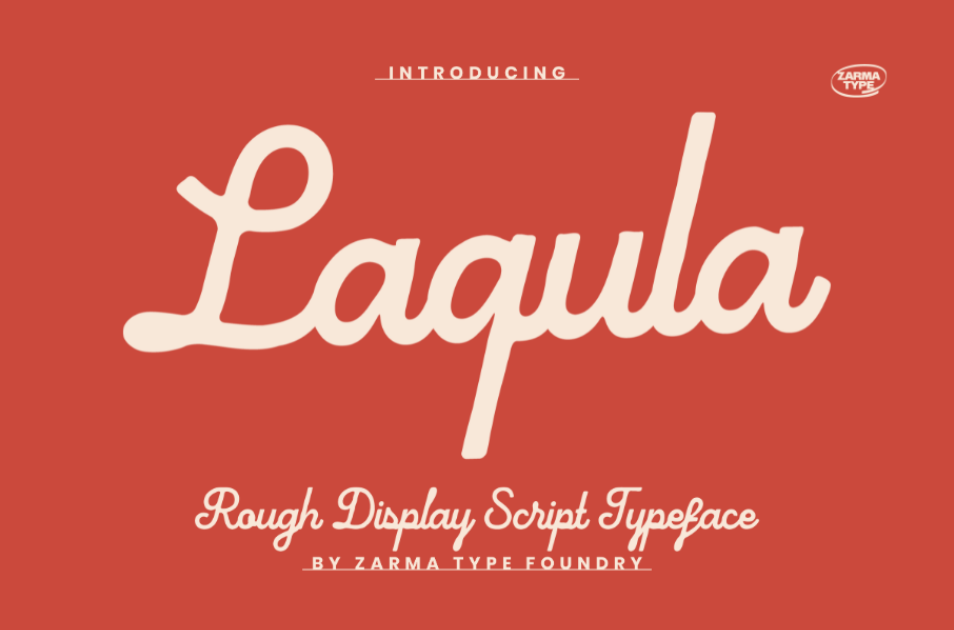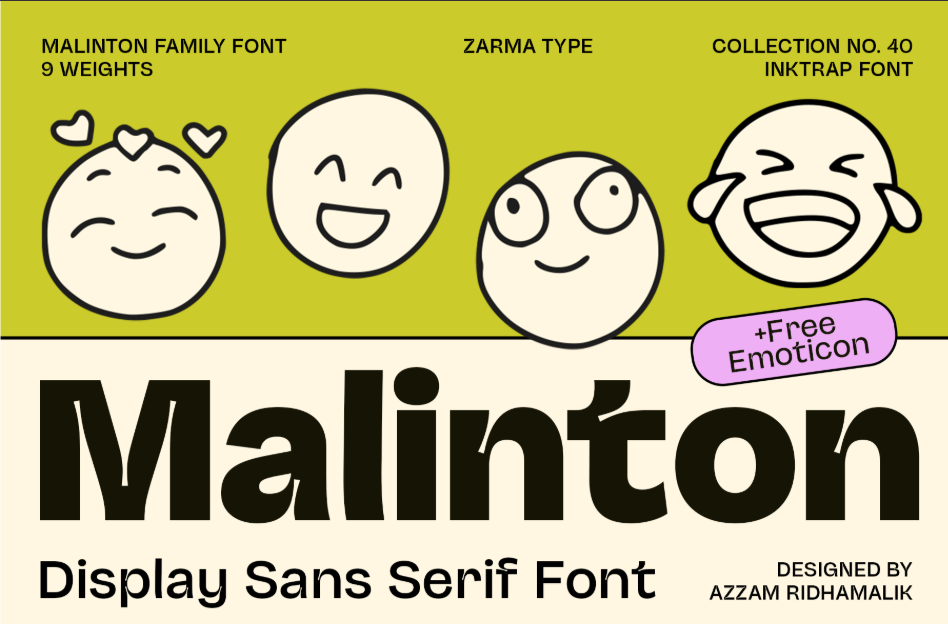
Poster fonts strengthen your designs’ influence on your audience through their aesthetic minimalism and agreeable kerning. They also often possess decent boldness to maintain readability. Our fonts can enhance the effectiveness and visual appeal of your designs with those qualities and originality, as well.
Key takeaways:
There are several key aspects to consider when creating effective posters. Firstly, you need to pay attention to the poster font sizes. Nanyang Technological University states the minimum size is 30pt. However, the size still depends on the themes of your posters and the crucial points you wish the audience to notice.
Additionally, Canva also highlights the importance of choosing fonts with few festive decorations and prioritizing more minimalistic, geometric letter shapes. Below is the list of our fonts that we have selected carefully to support you in creating the best influential posters ever.
The miniature counters and broad designs of Bilgres underline the font’s whimsical presence. Stamp the round edges and interesting ligatures to create original looks.
Benitter embellishes your posters with vintage auras with the font’s organic and clean strokes. Let the no-counter alternates get involved in making your captivating designs.
The condensed kerning emphasizes important messages in the headlines of your scientific posters. Ensures the flawless visual of them with the refreshing ligatures, too.
Psygen proposes a mutual relationship to raise the reputation of your tech-themed posters with the font’s pixelated capitals and advanced alternates.
The dense kerning and even boldness only maximize Moldin’s powerful impact on titles. Excel your business-related posters by combining the six versions of font weight.
Morning Grown’s consistent thickness and sprodiadic letter shapes place the font as one of the best festive-like poster fonts. Include the discretionary ligatures for a unique look.
The appropriate boldness and elegant contrast establish confidence in your posters. Add a customized appearance by incorporating the font’s contemporary ligatures..
The dynamic between Ayuga’s exaggerated boldness and slender connecting strokes can emphasize the thematic visual of your hipster-inspired posters.
The matchless steadiness of Laquala’s mediumweight compromises gorgeously with the precision of the font’s strokes. Use the handwritten strokes on your movie posters to catch more attention.
The minimalism of Malinton’s decorative detail does not detract from the font’s readability. Replace the letter forms with cheeky emojis to produce a friendly look.
The high-class cleanliness of Barnule and Mauren reassures the font’s legibility. Use both styles of capitals to highlight the unique flair of your Mexican-related posters.
Nebulica is ranked as one of the professional-looking poster fonts because of its pleasingly symmetrical letter forms. Utilize the nine types of font weights to add more dynamics.
Megren beautifies your fashion-themed posters with the font’s pleasant-looking, geometric designs and the calligraphic alternates.
The exquisite contrast and wonderful neatness of Verilet piques your audience’s curiosity to learn more about your perfume-related posters.
Bringbold Nineties’ tasteful contrast and proper proportions fit for editorial-like or food-related posters. Place the oblique version and swirly terminals for a rich look.
The broad serifs improve the formal appearance of your business posters. Arrange the style with the italic version to get a nostalgic yet contemporary feel on your designs.
Trivenia makes an impactful impression and asserts high readability with the font’s curvy and clean lines.
The attractive texture and unwavering heavy weight of Arinoe can be elevated further with the mixture of the font’s outlined, stamp, and rough versions.
Mufteya upholds the strength of simplicity through the font’s careful precision and undecorated lines. Involve the cute serifs and the slant version of the font in your designs for a more stylistic look.
Trinstam’s luxurious appearance is derived from the font’s delicate yet well-crafted strokes and the fancy-looking ligatures.
Poster fonts with impressive minimalism and sensible boldness are preferable to ensure the high readability of your posters. However, adding other distinctive details is also important to create a more original appearance and feel. Zarma Type is the perfect place for you to arrange the typography that represents you.You can find a variety of poster font collections that can stylize your posters better for visual appeal and visual communication to deliver your messages to your audience properly. Do not be afraid to be creative by combining fonts from different styles to produce the typography that you genuinely need.